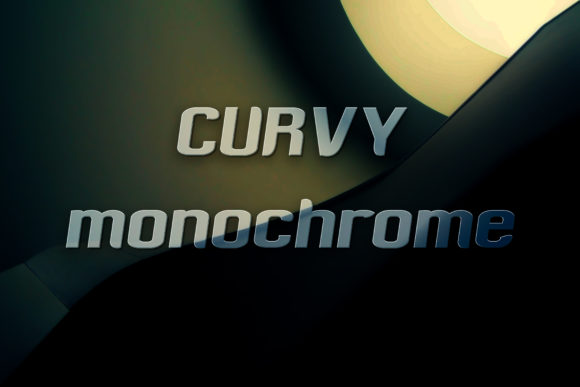
Unlock the Sufrimeda Font: A Gateway to Design Brilliance!
In the realm of typography, the Sufrimeda font stands tall, a beacon of creativity, precision, and visual allure. Its geometric display persona exudes a captivating aura, commanding attention with its sharp angles, clean lines, and unwavering balance.
With its inherent versatility, Sufrimeda transcends the boundaries of ordinary fonts, adapting seamlessly to a kaleidoscope of design endeavors. Whether you're crafting bold headlines that demand notice, eye-catching posters that ignite curiosity, or sleek logos that leave a lasting impression, Sufrimeda emerges as your trusted ally, elevating your creations to new heights of sophistication.
Step into the world of Sufrimeda and unleash the boundless possibilities that await. Let your imagination soar as you explore the font's remarkable attributes, each carefully crafted to empower your designs with unparalleled impact.
The Sufrimeda font family encompasses a spectrum of weights, from the delicate hairlines to the commanding blacks, offering you a comprehensive toolbox to articulate your ideas with precision. Embrace the finesse of the lighter weights as they dance across your designs, adding a touch of grace and elegance. As you progress through the bolder weights, witness the transformation as Sufrimeda exudes strength, authority, and unwavering presence.
As a creation of the esteemed designer dondon_nillo, Sufrimeda embodies the essence of innovation and meticulous craftsmanship. Its geometric roots lend themselves effortlessly to contemporary designs, while its modern interpretation breathes new life into classic aesthetics.
Harness the power of Sufrimeda and elevate your designs to the forefront of visual excellence. Experience the thrill of creating captivating headlines that slice through the noise, capturing the attention of your audience with magnetic allure. Design posters that ignite imaginations, transporting viewers to realms of wonder and inspiration. Craft logos that establish an indelible mark, etching themselves into the minds of consumers as symbols of quality and distinction.
With Sufrimeda, the possibilities are boundless. Dive into a world where typography transcends the mundane, where every letter carries the weight of your message and every word resonates with captivating charm. Embrace the Sufrimeda font family and embark on a journey of creative liberation, where your designs blossom into masterpieces that command attention and leave an enduring legacy.